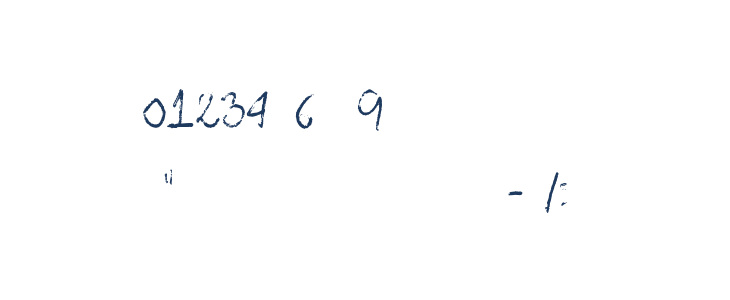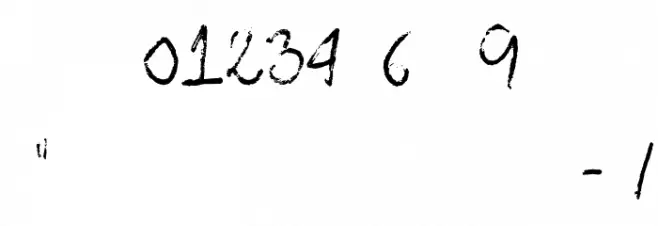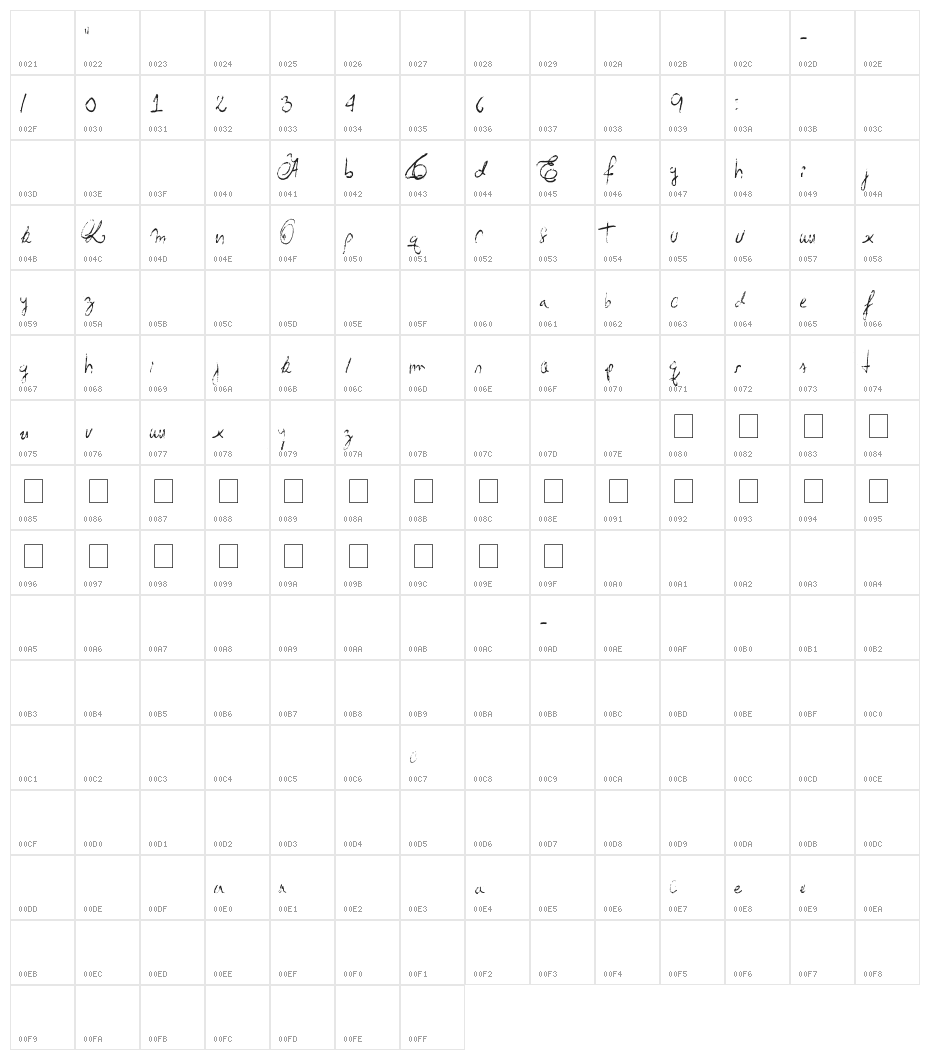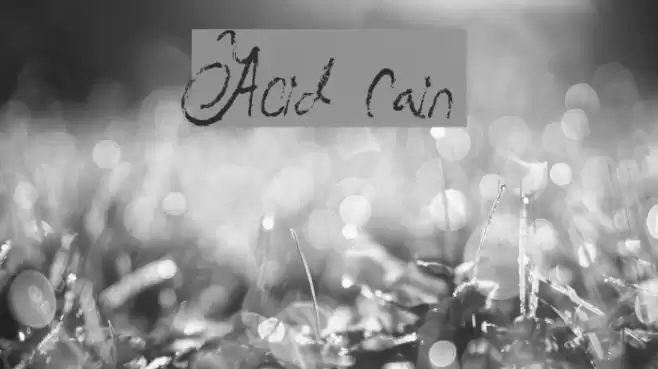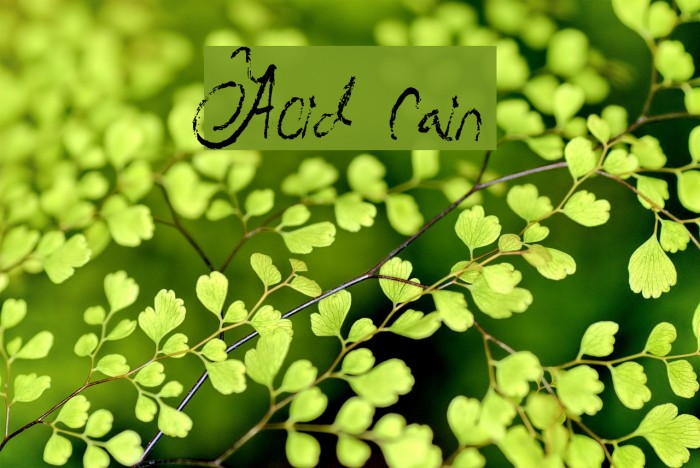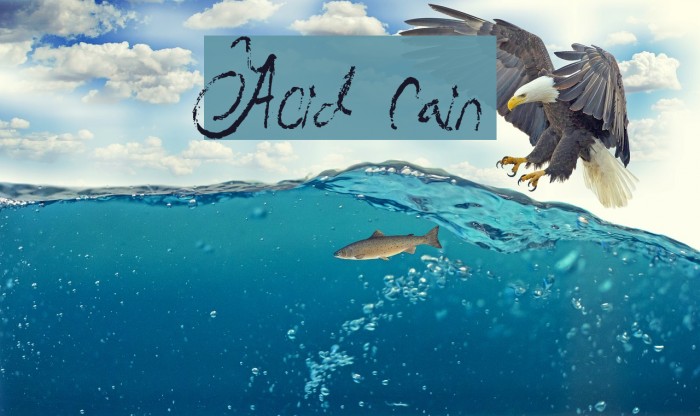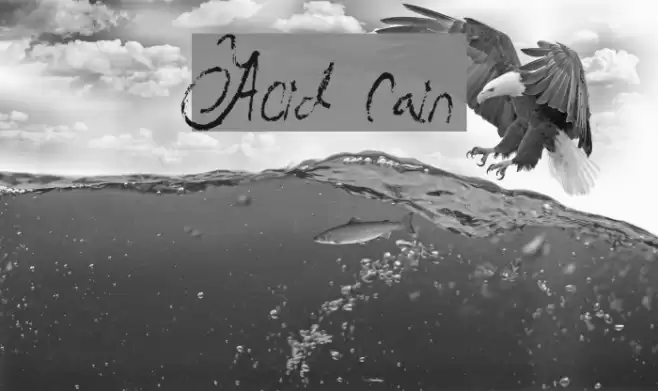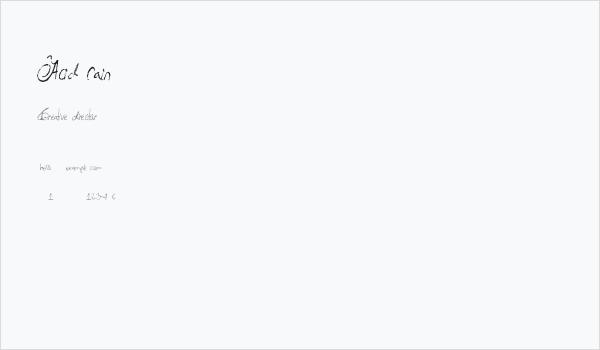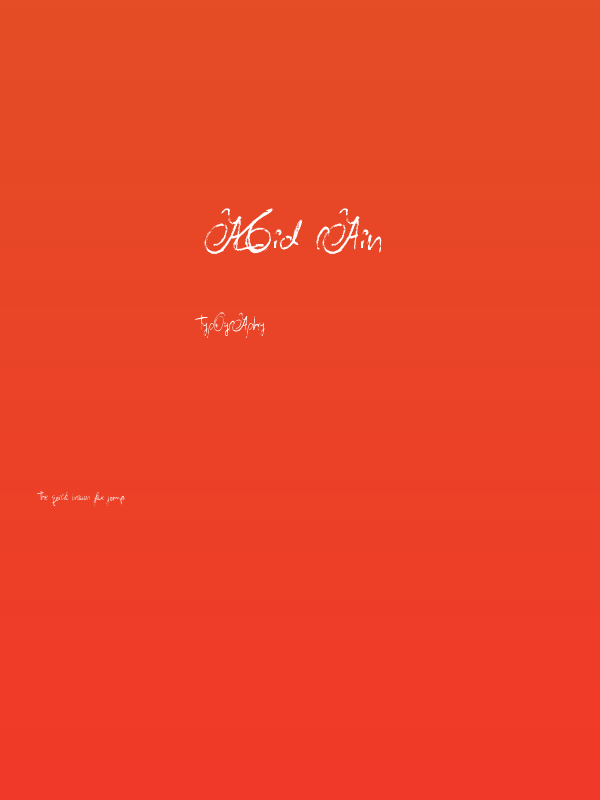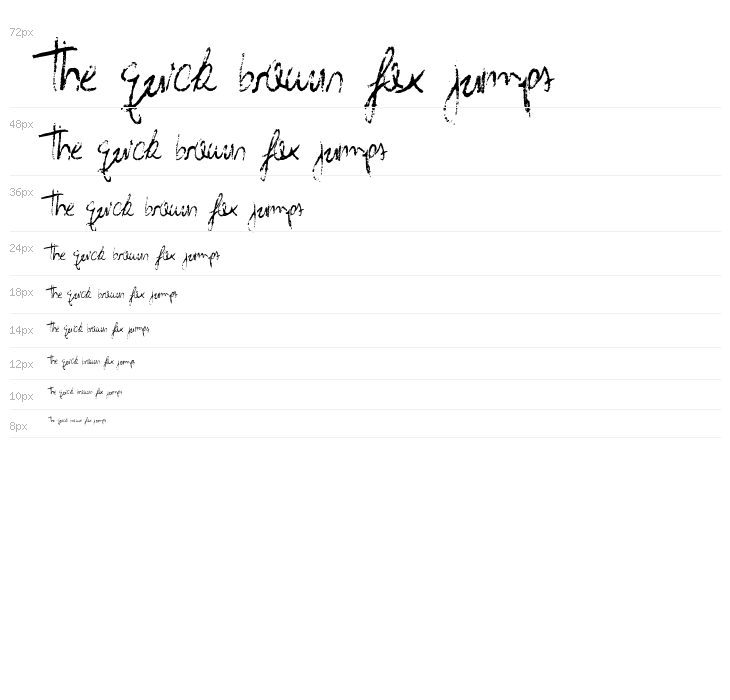
Acid Rain Font
Acid Rain Description
This font exhibits a highly expressive and artistic style, characterized by its fluid, cursive script that mimics the appearance of handwritten calligraphy. The strokes are dynamic and varied, with a noticeable contrast between thick and thin lines, giving it a lively and energetic feel. The letters are interconnected, enhancing the flow and continuity typical of cursive writing. Despite its artistic flair, the font maintains a level of legibility, making it suitable for creative projects that require a personal touch. The numbers and special characters follow the same stylistic cues, ensuring consistency across all elements.